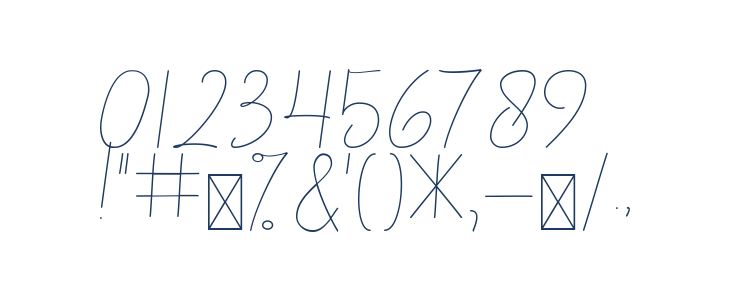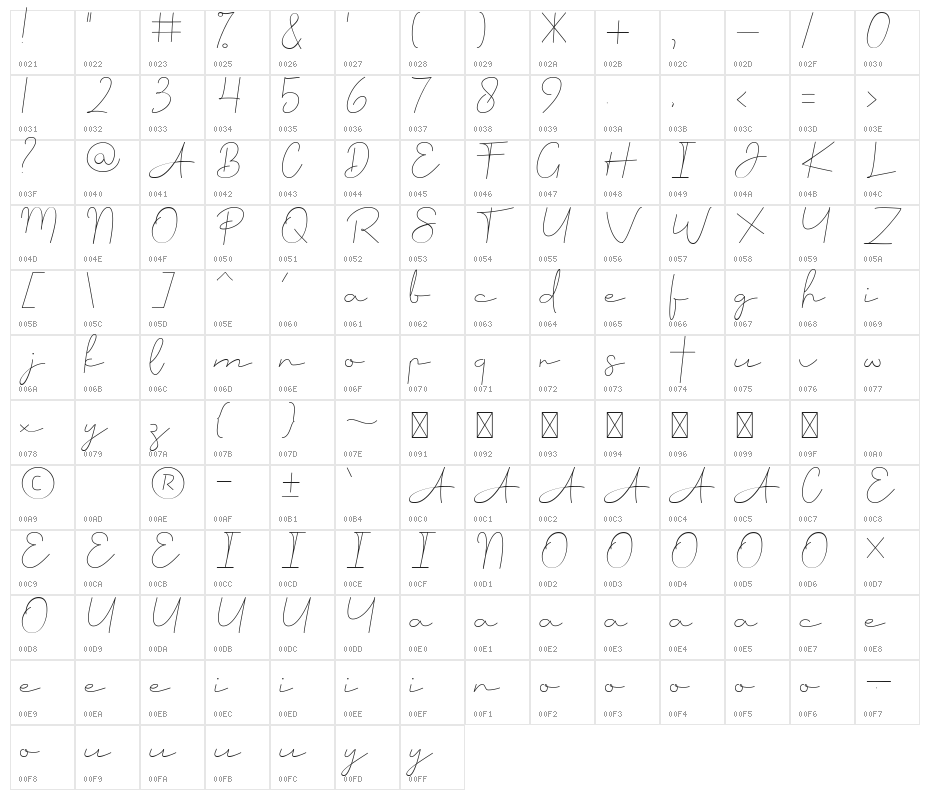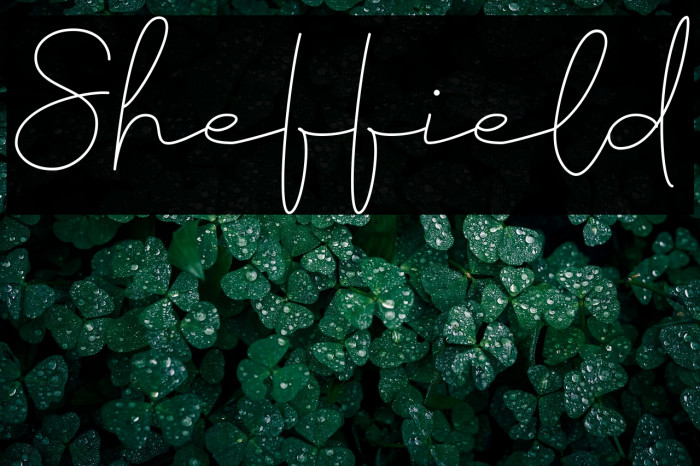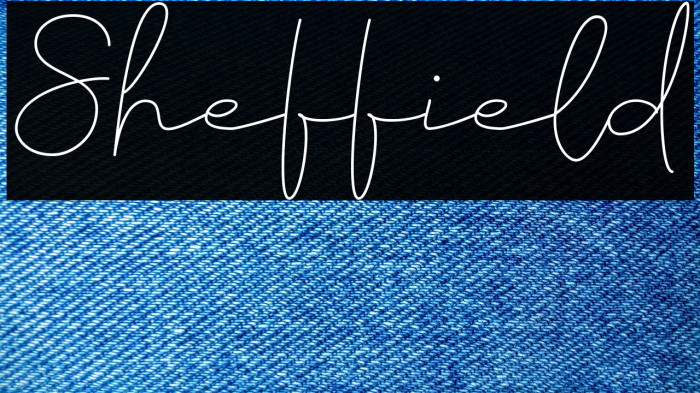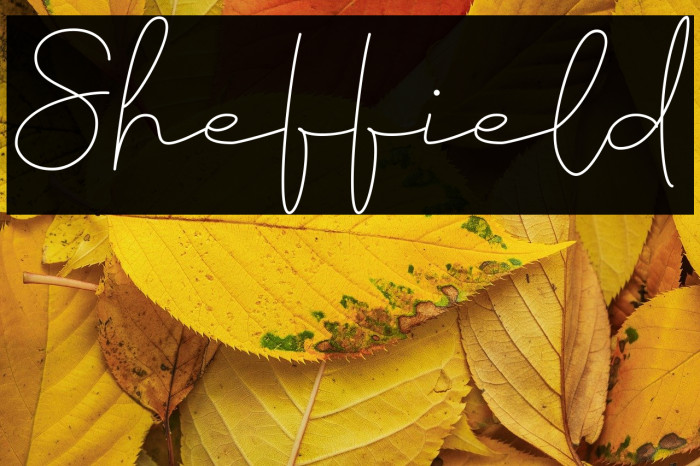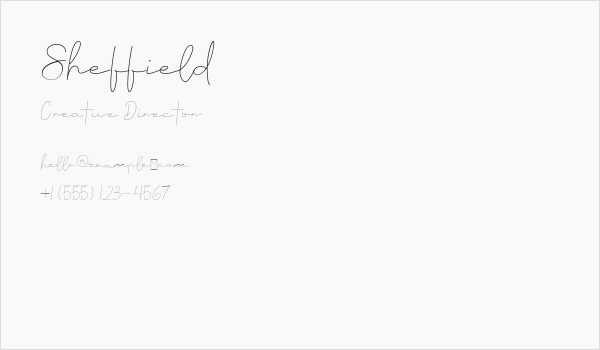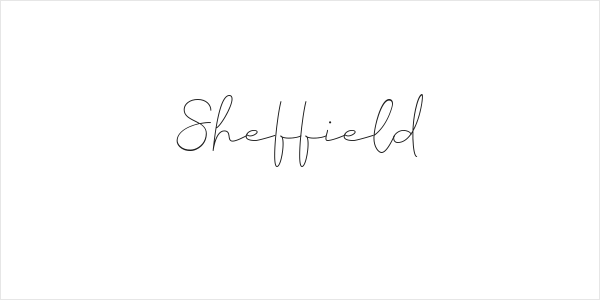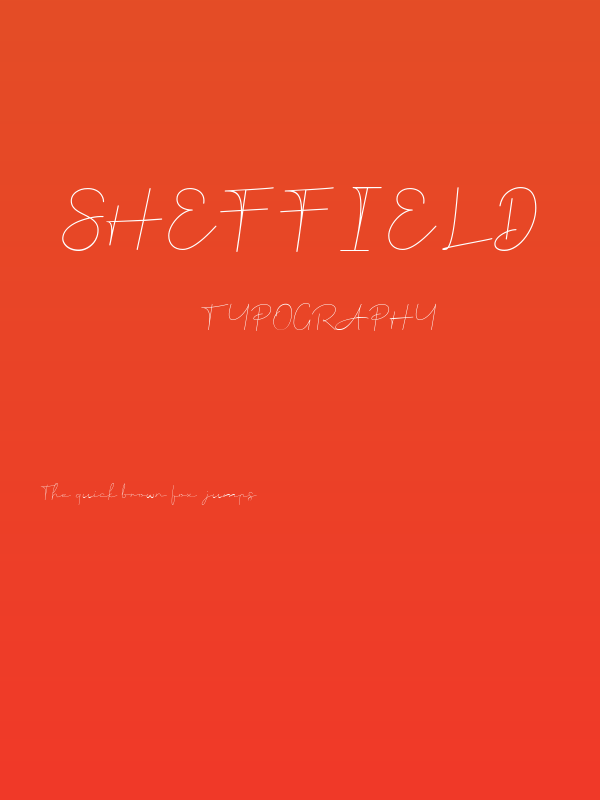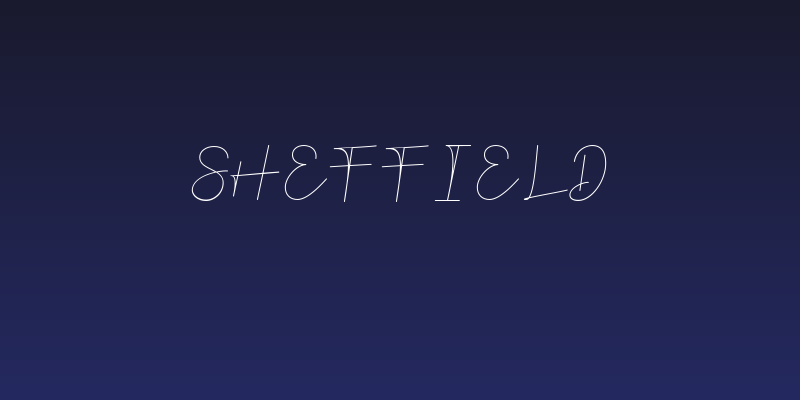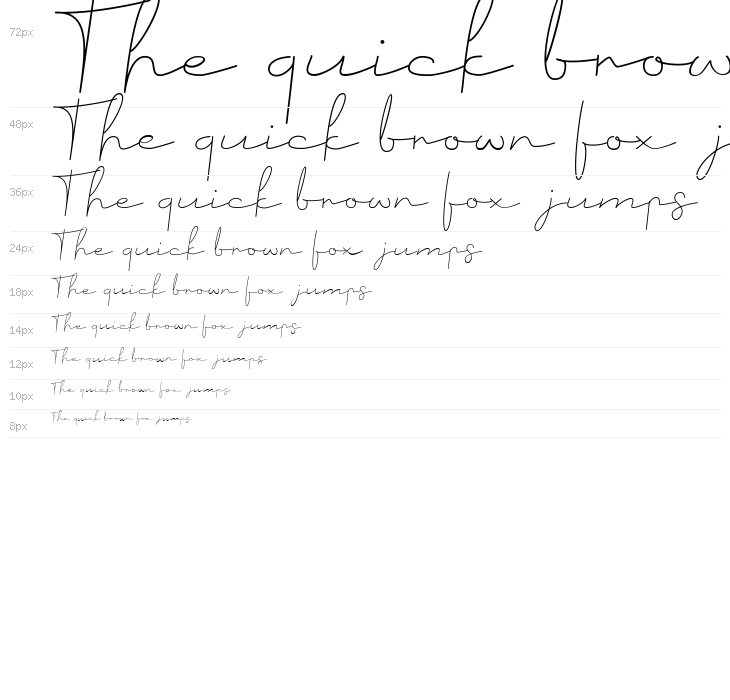
Sheffield Font
Sheffield Description
This font features a delicate, handwritten style with a smooth, flowing script that mimics natural handwriting. The characters are elegantly connected, providing a sense of continuity and fluidity. The uppercase letters are slightly more structured, while the lowercase letters exhibit a more casual, freeform appearance. The numerals and special characters maintain the same handwritten aesthetic, ensuring consistency across all glyphs. The overall design is airy and light, with a thin stroke weight that adds to its graceful appearance. This font is ideal for projects that require a personal touch or an elegant, yet informal, look.
| Overall Style | Elegant, Informal |
| Use Case | Logos, Invitations, Personal Correspondence |
| Proposed Projects | Ideal for wedding invitations, personal letters, greeting cards, and branding that requires a personal touch. |